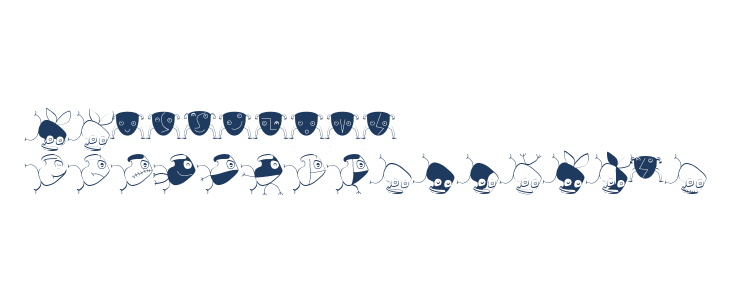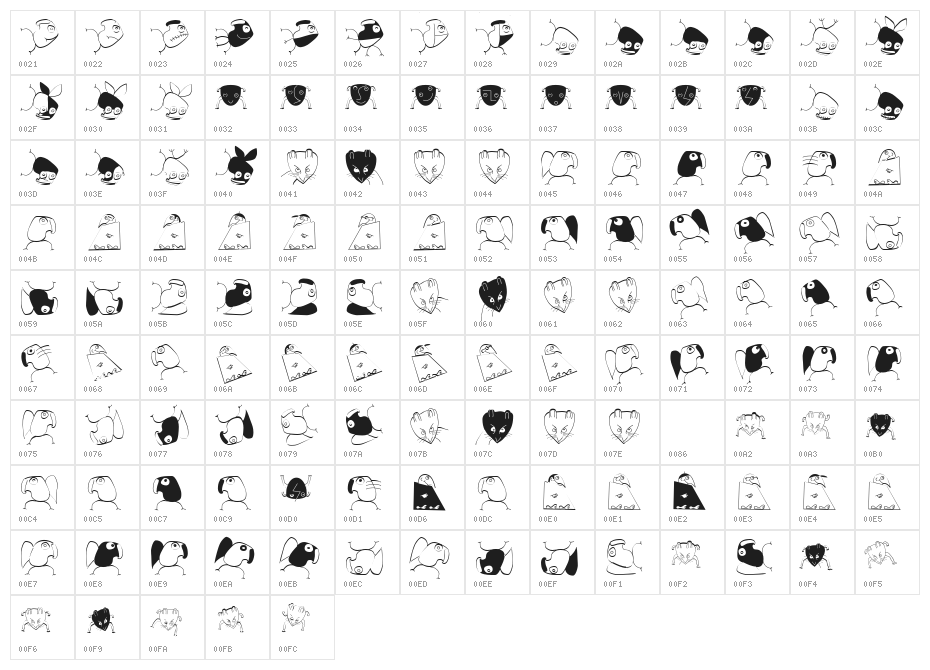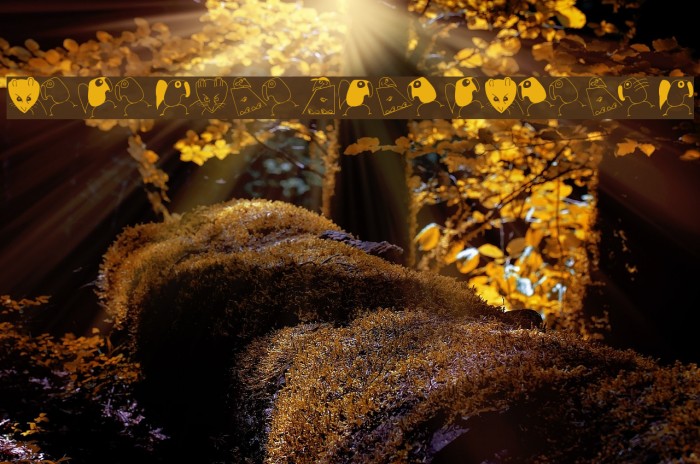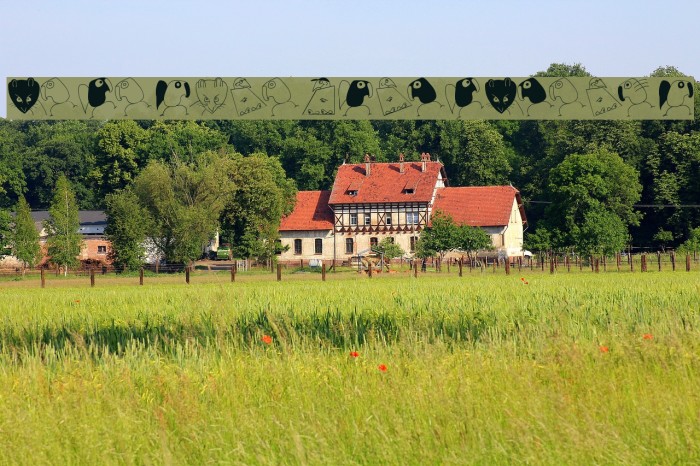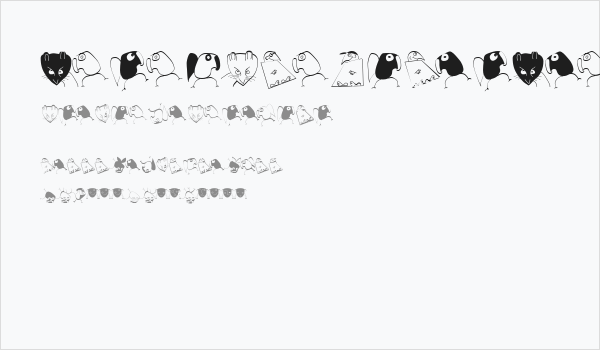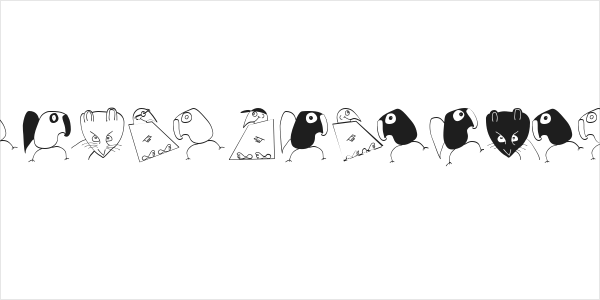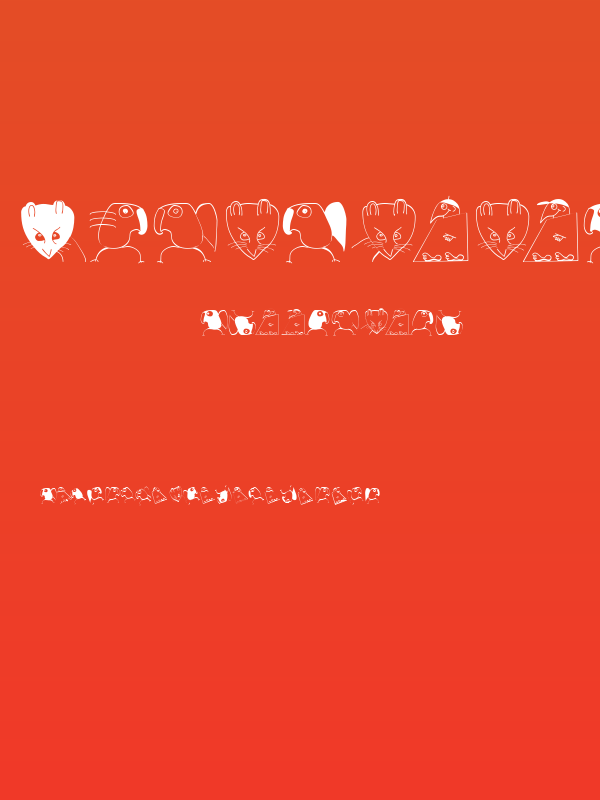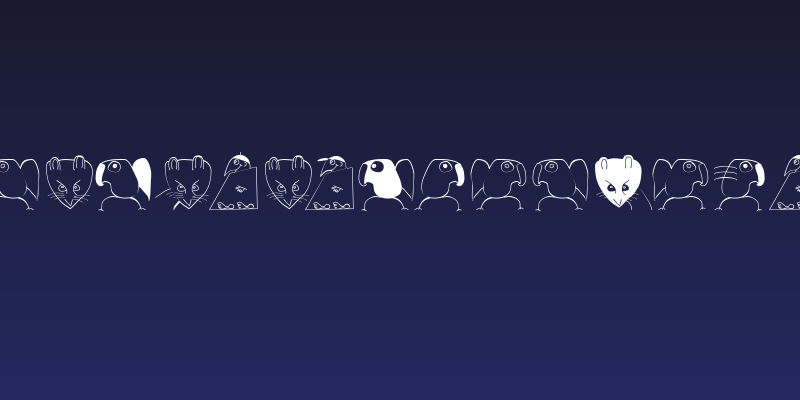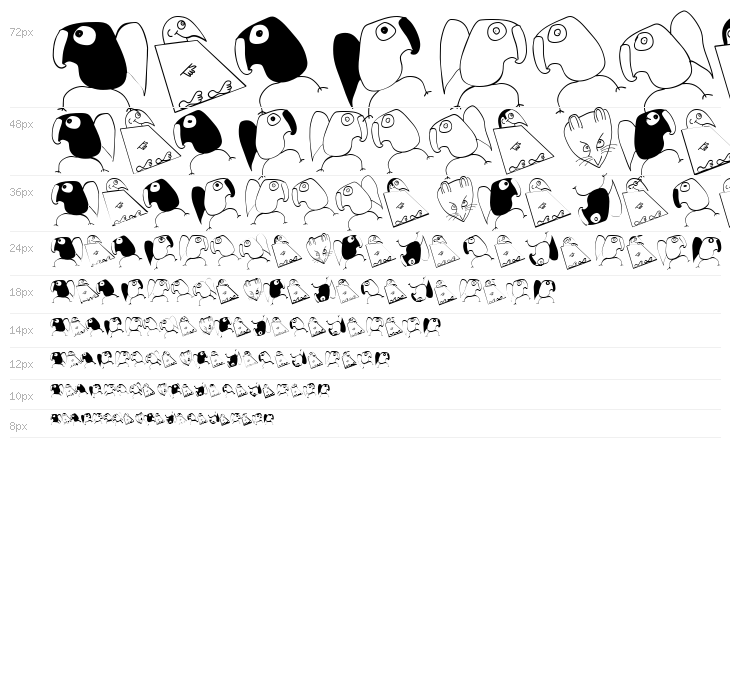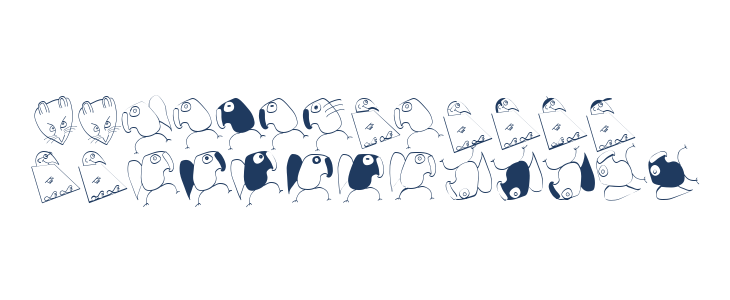
BirdsAndOtherBeings Font
BirdsAndOtherBeings Description
This whimsical and playful design features characters that resemble birds and other creatures, each with unique expressions and shapes. The style is highly decorative, with a focus on creating a sense of fun and creativity. The characters are drawn with bold lines and varying levels of detail, some filled with solid black while others remain outlined. This design is not a traditional font but rather an artistic representation of characters, making it suitable for creative projects that require a touch of humor and imagination.
| Use Case | Logos, Illustrations, Creative projects |
| Proposed Projects | Ideal for children's book illustrations, creative posters, playful branding, and unique graphic design projects. |